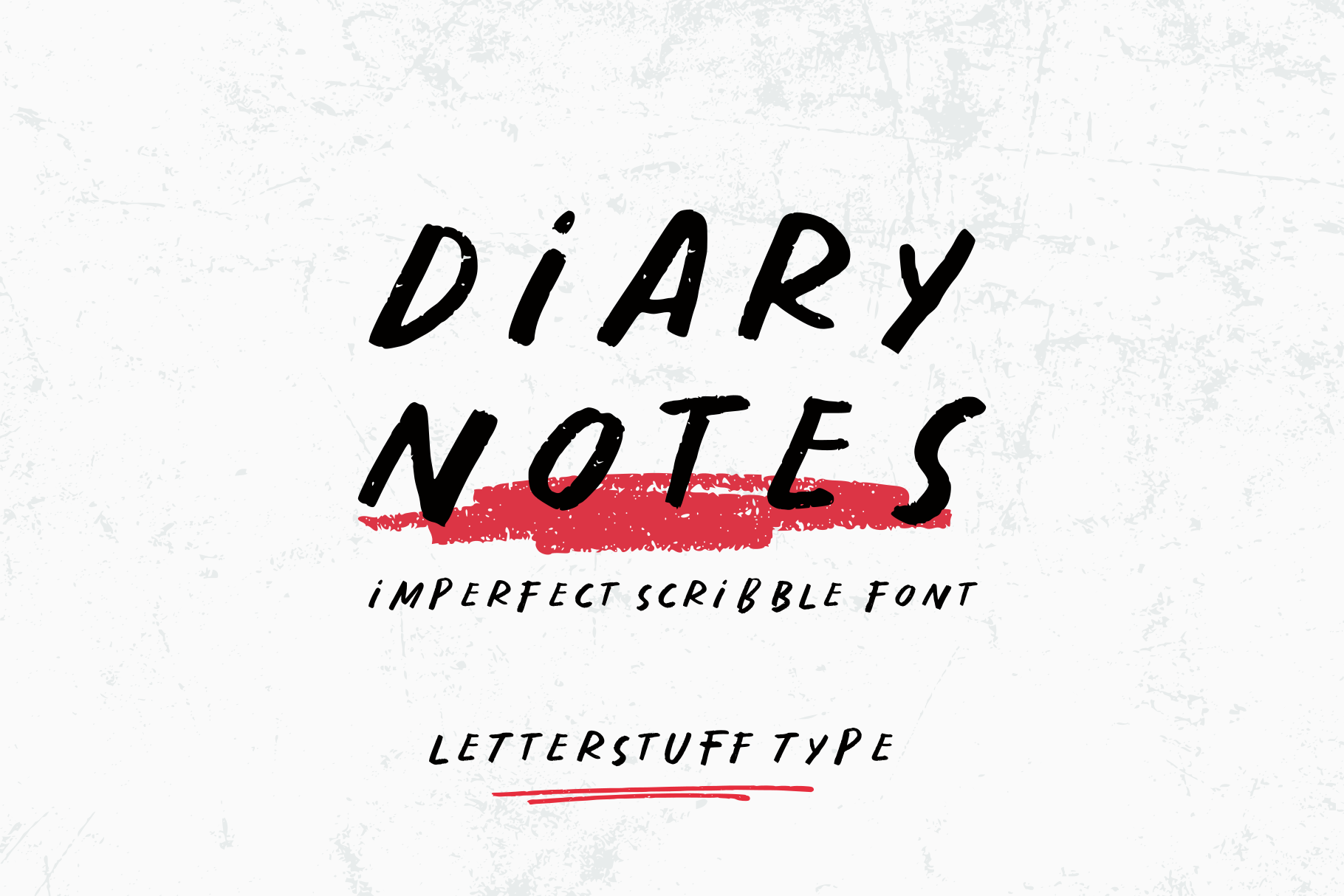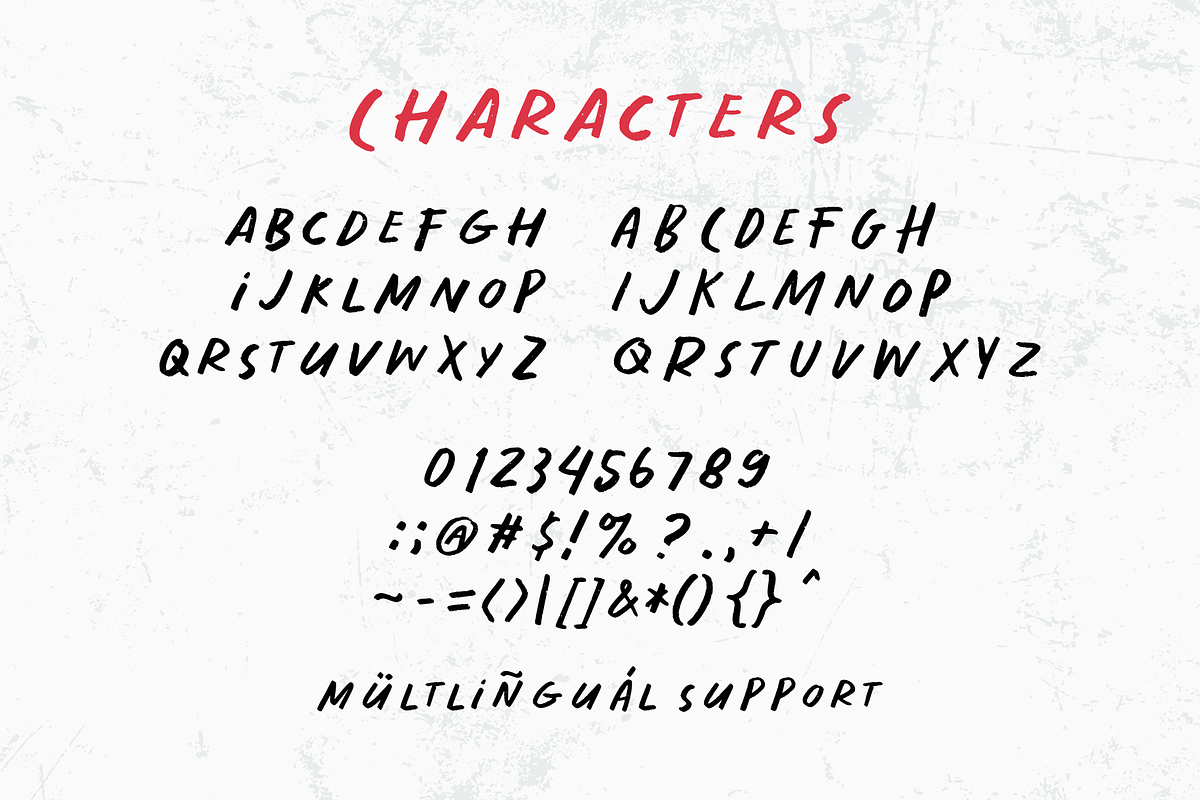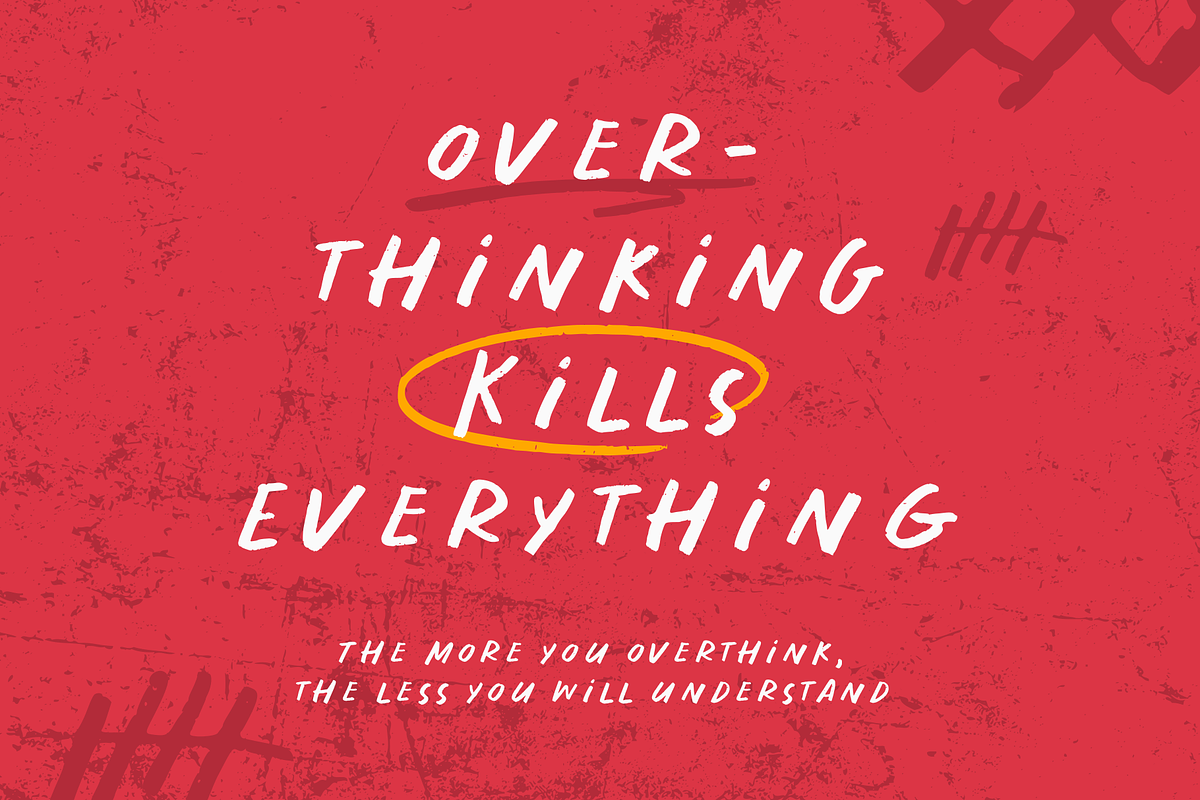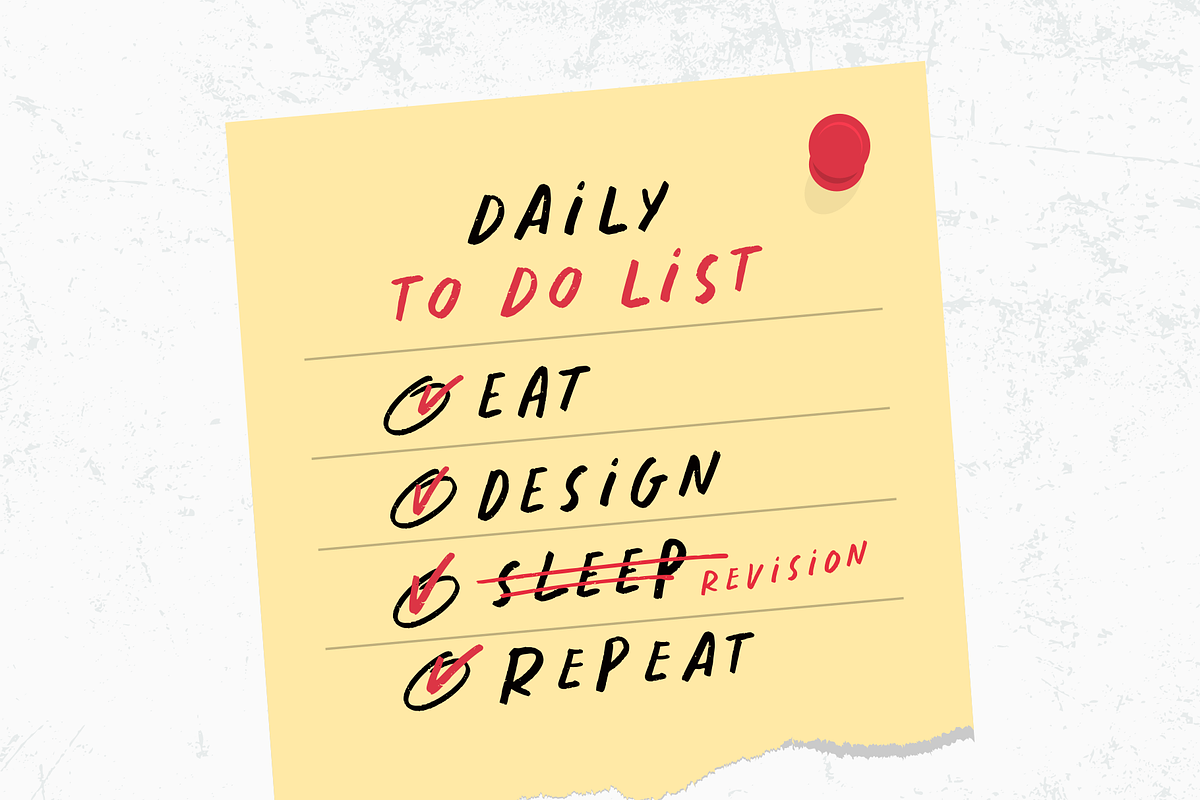
Diary Notes | Scribble Font
Write down your daily thoughts and plans with our playful, this scribble font inspired by handwritten diary notes. Whether you're planning a late night adventure or meeting friends for brunch, this font makes you want to get out there and go!
Combine lowercase and uppercase to get more natural and random handwritten.
- Numeral and punctuation
It's like the notes you never want to forget. This playful font, based on handwritten diary notes, shows that you'll easily remember to write something down because it's fun to do so. Write down your brilliant ideas, sketches for new projects and pieces of inspiration at a glance.